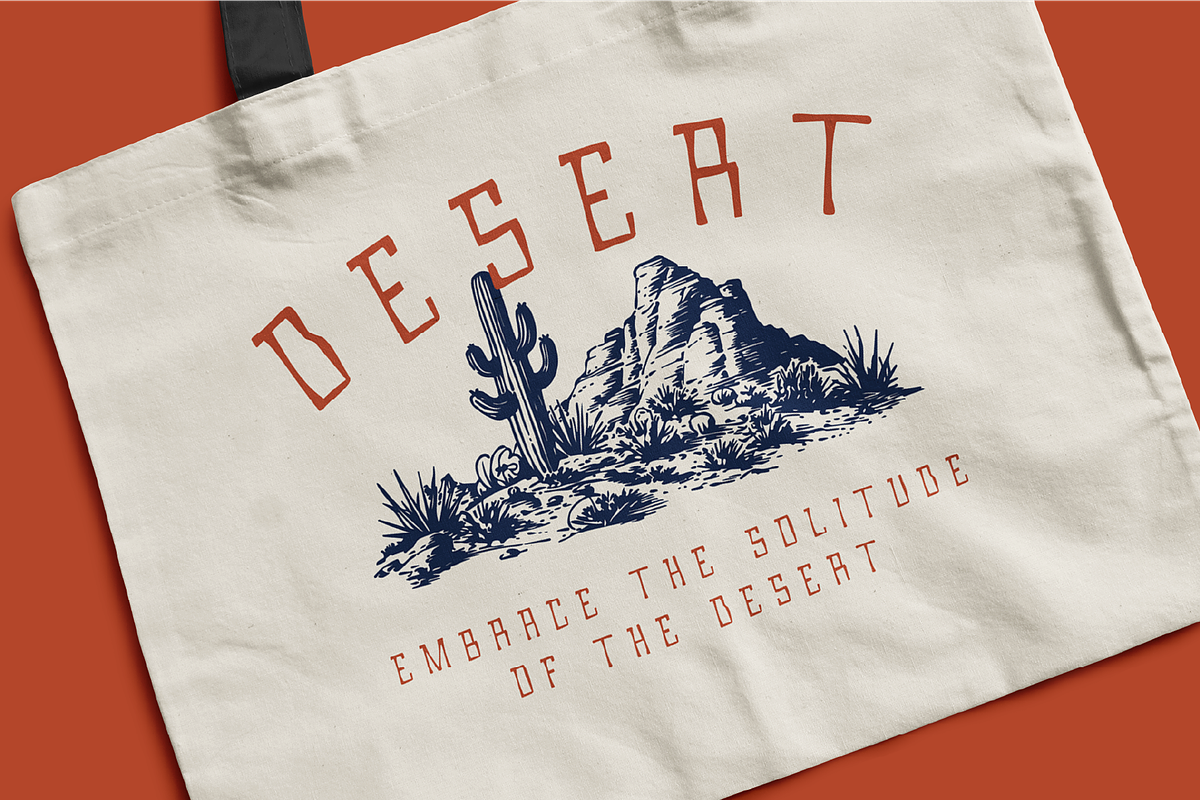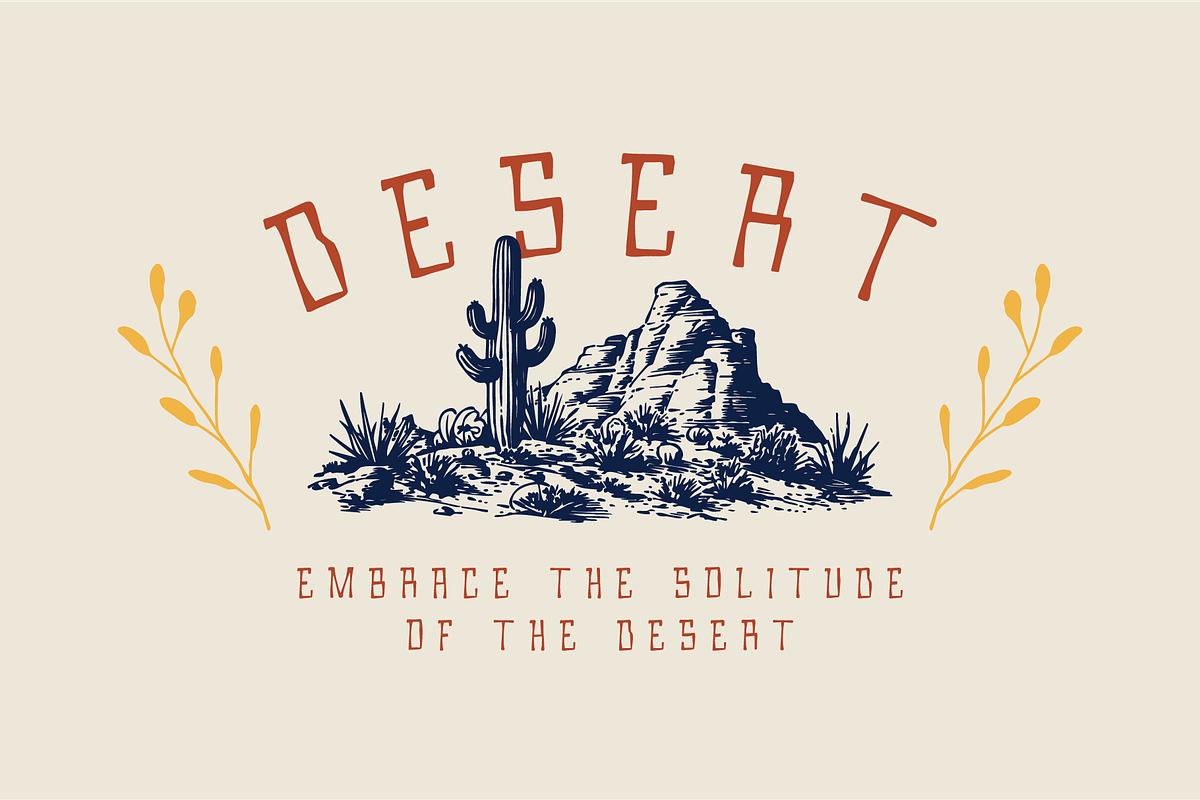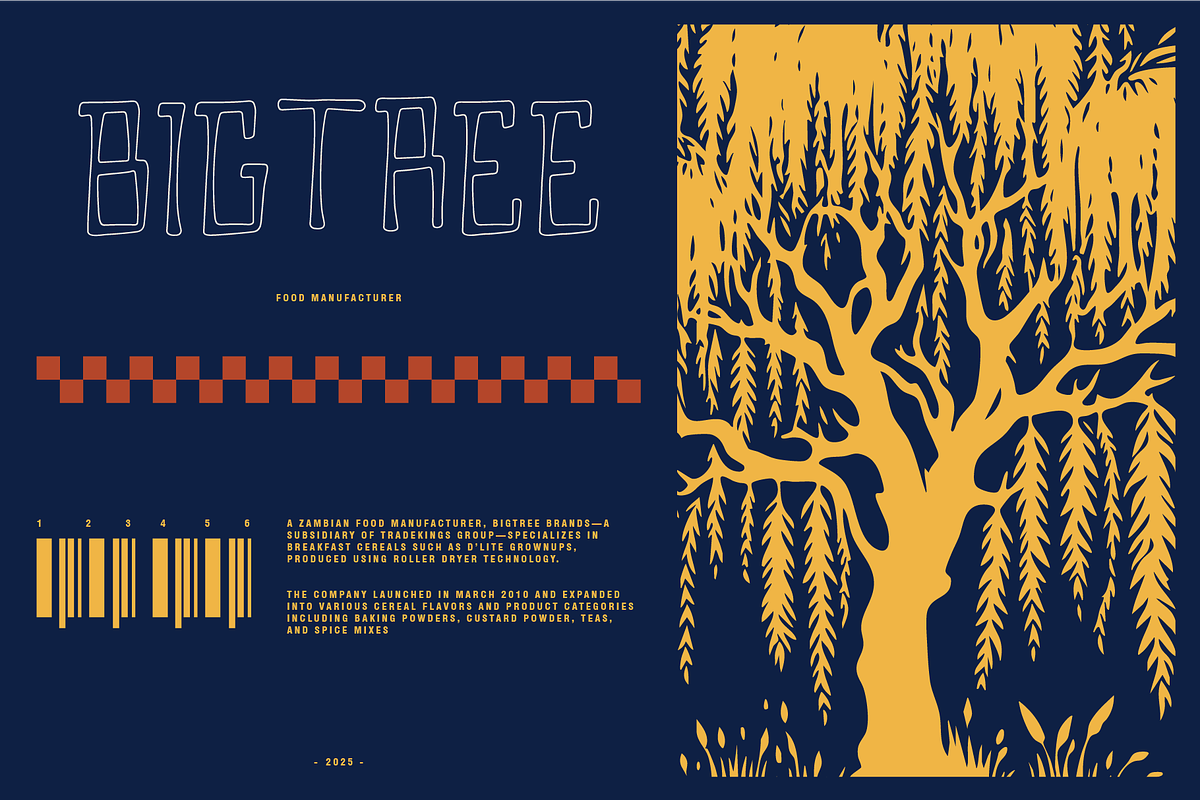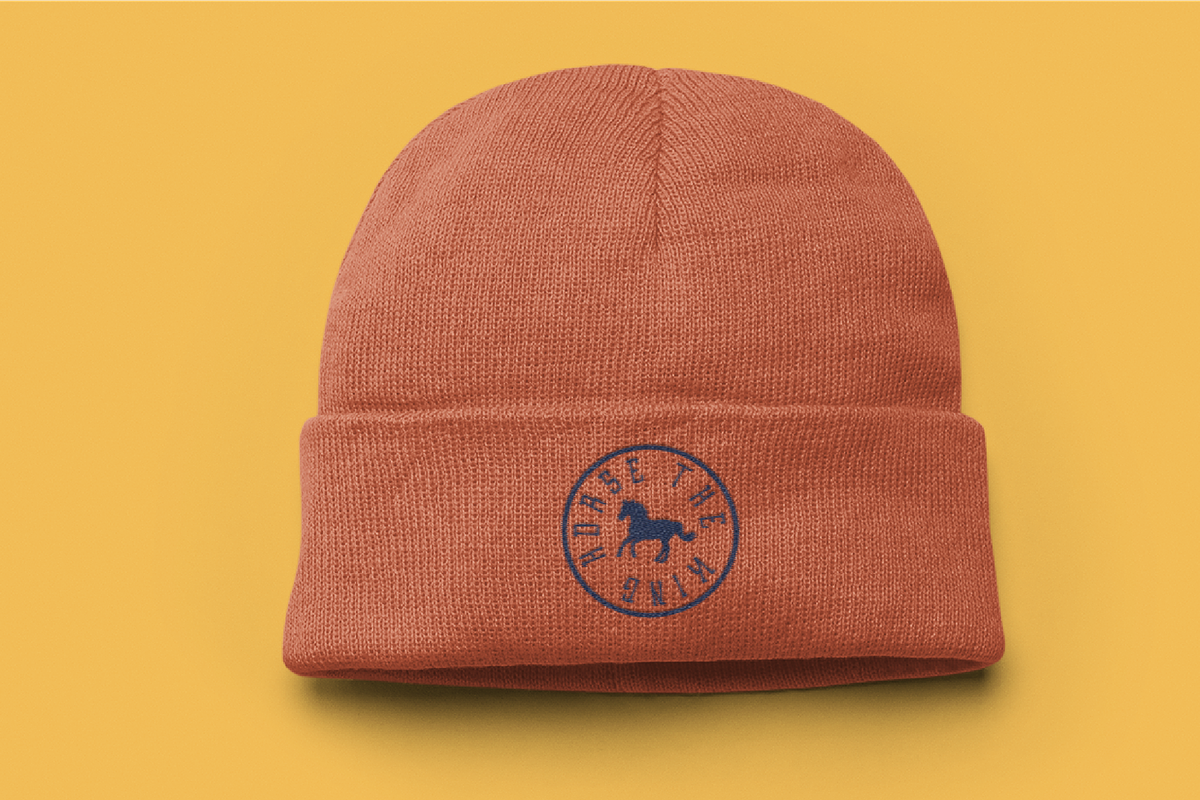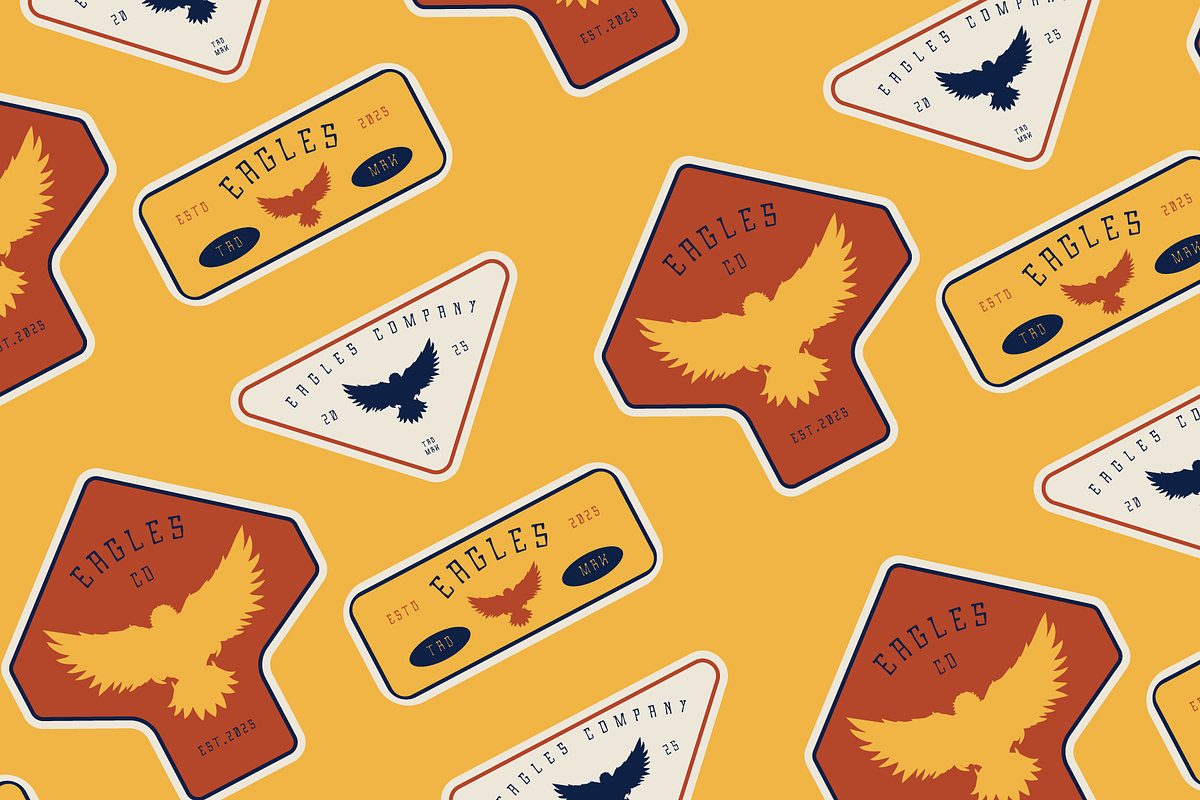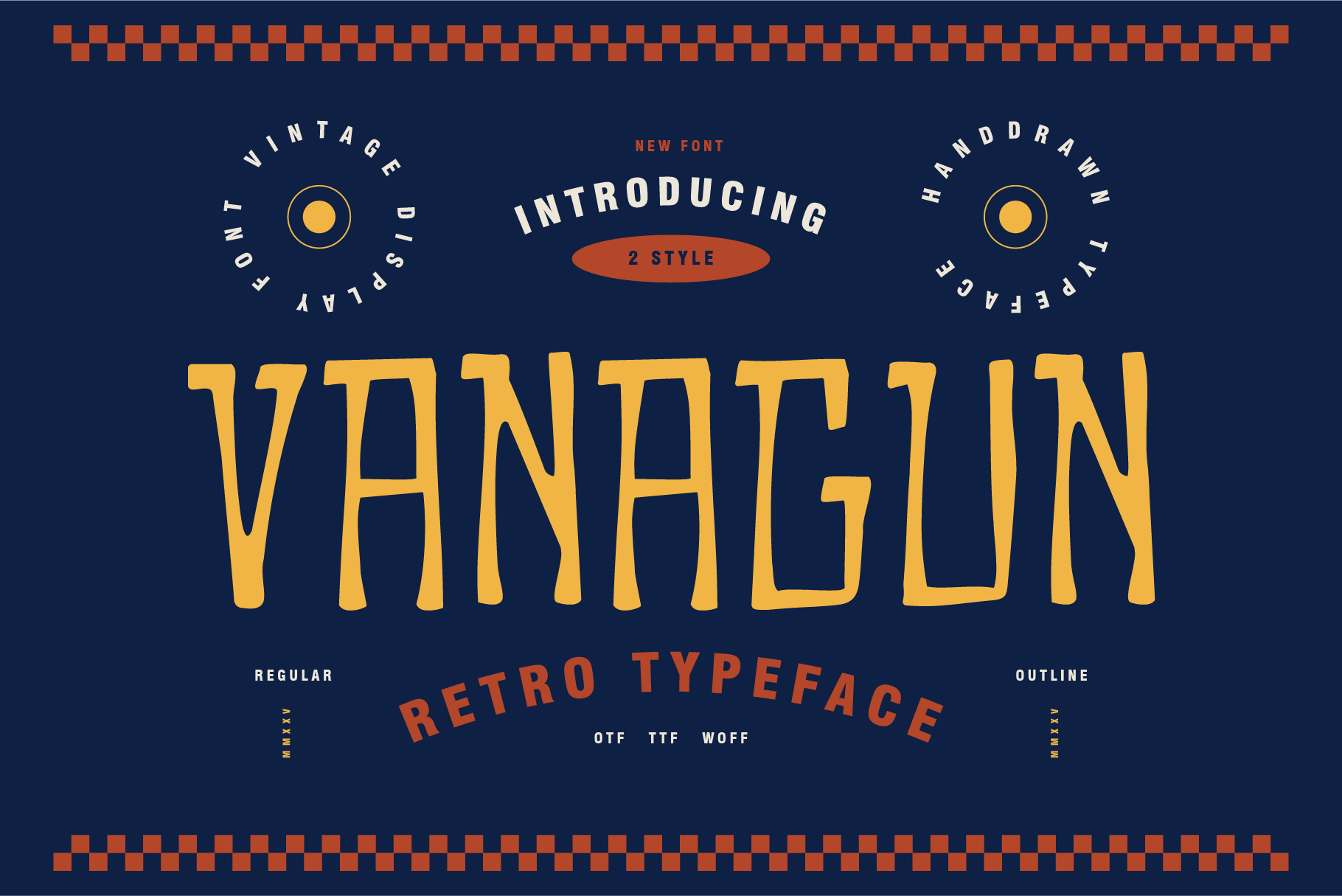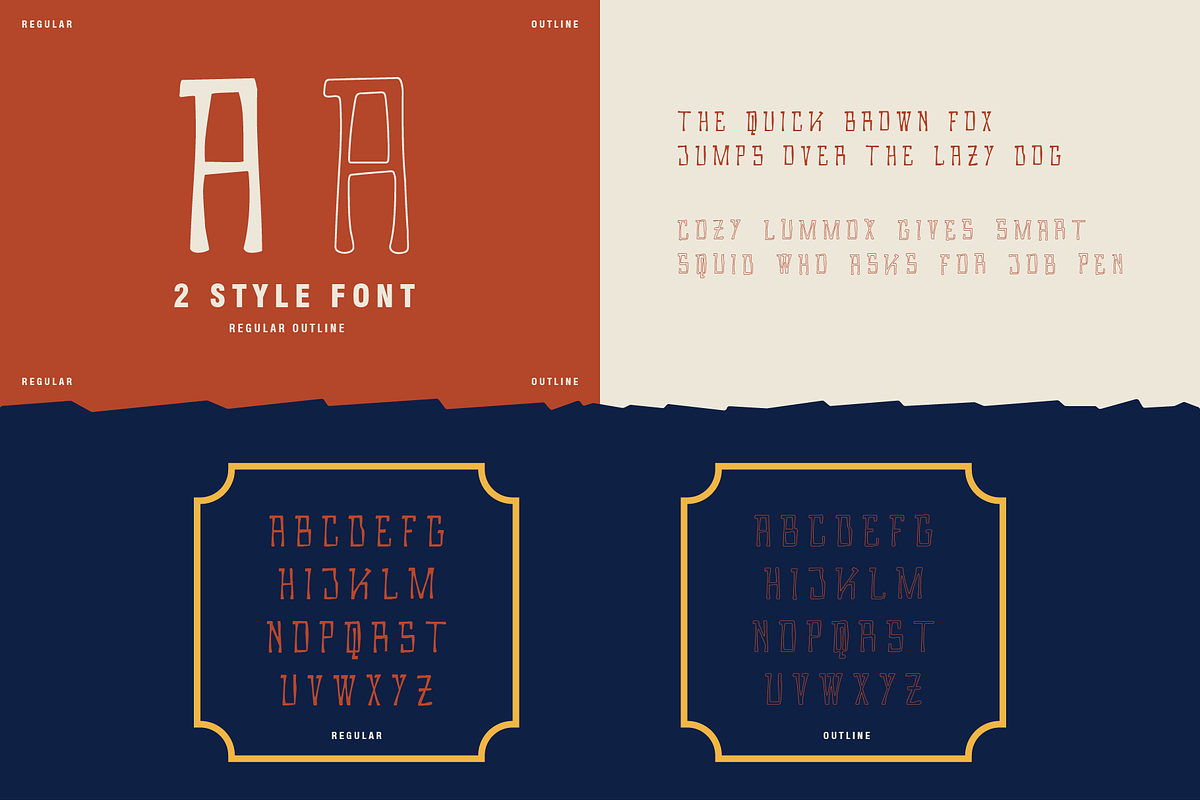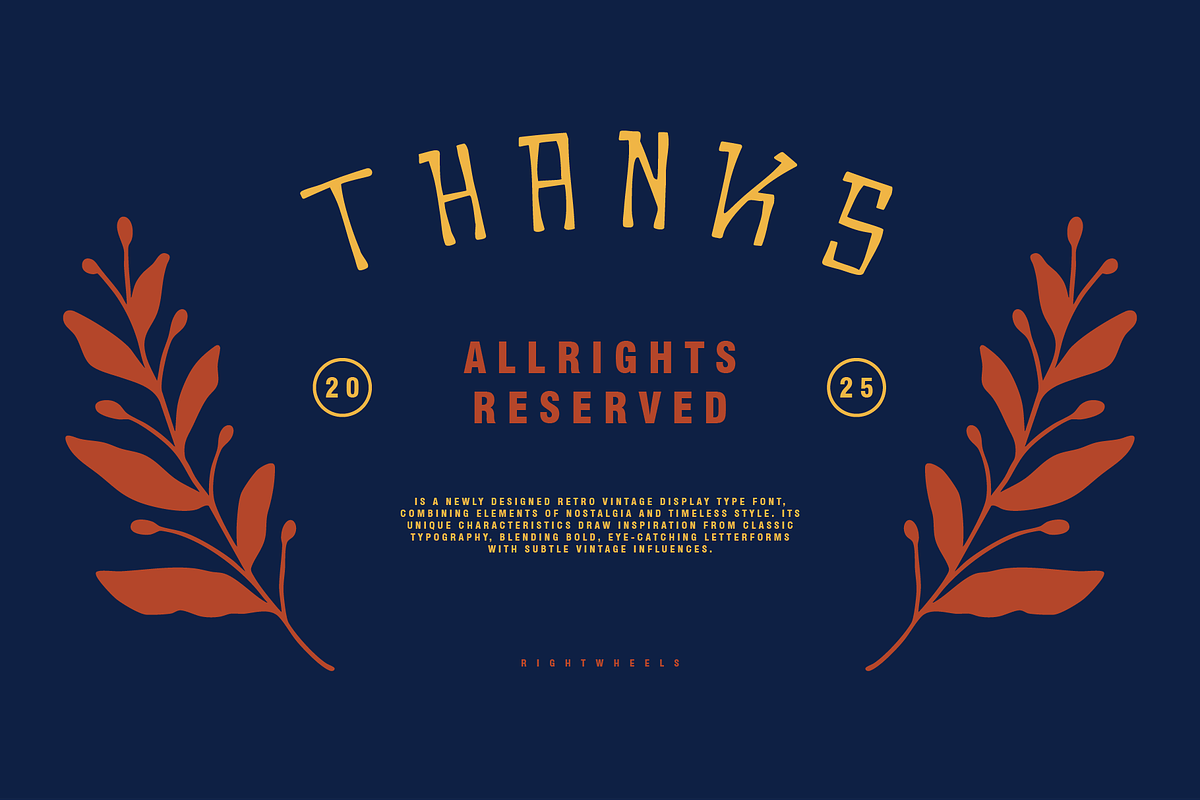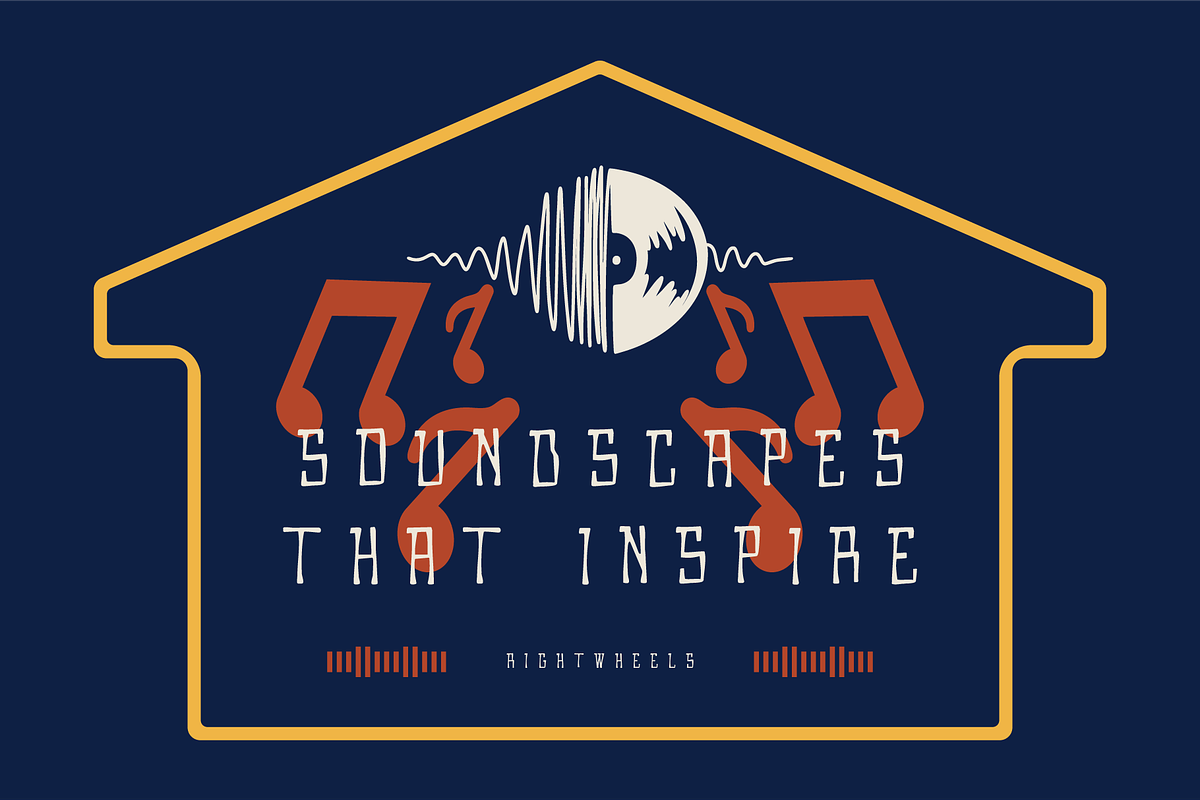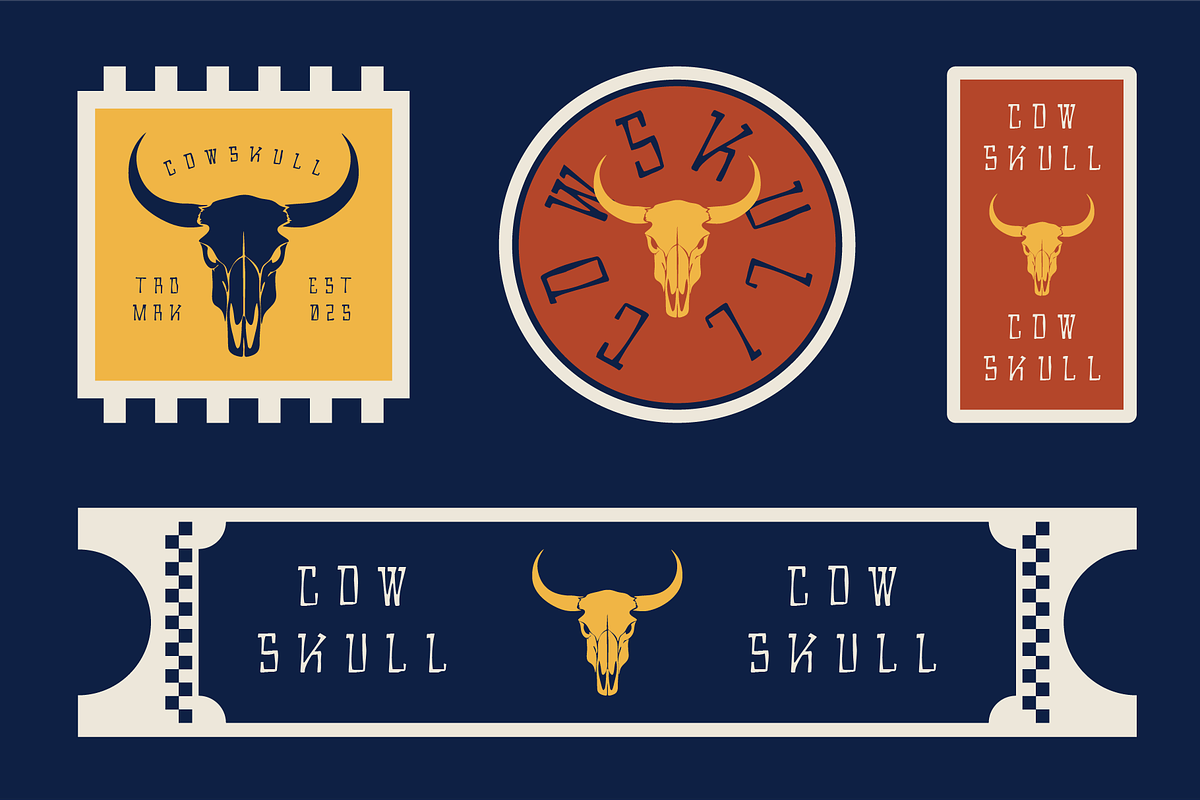
VANAGUN - Retro Display Font
Vanagun is a newly designed retro vintage display type font, combining elements of nostalgia and timeless style. Its unique characteristics draw inspiration from classic typography, blending bold, eye-catching letterforms with subtle vintage influences. The font exudes a sense of charm and old-school flair, making it perfect for projects that require a retro touch, such as posters, logos, packaging, or any design that seeks to evoke a sense of the past while maintaining modern appeal. Its clean yet distinctive design makes it both readable and striking, offering a great balance between aesthetic appeal and functionality.